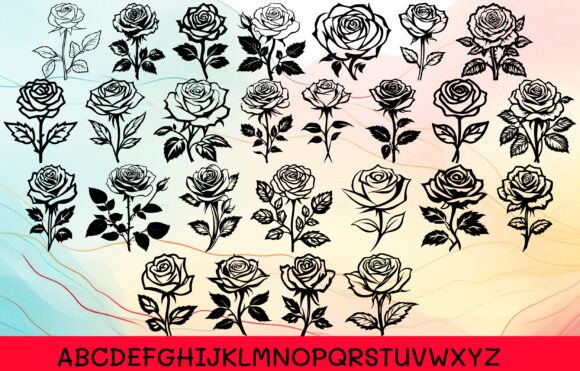
Introduction to Rose Flower in Love Font
As you sit at your desk, surrounded by scraps of paper, paint, and glue, you can’t help but feel a spark of creativity ignite within you. The blank page stares back, waiting for the perfect design to bring it to life. For many of us, this is the moment when our imagination knows no bounds, and the possibilities seem endless. But, have you ever found yourself struggling to find the perfect design element to elevate your project?
Enter the Rose Flower in Love Font, a stunning collection of 26 unique rose-inspired designs, each corresponding to a letter from A to Z. This high-quality font is a treasure trove for designers, offering a versatile design resource that can be used in a variety of creative projects, from crafting and invitations to wedding themes and more.
Key Features of Rose Flower in Love Font
- High-quality, creative font perfect for a variety of design projects, including wedding invitations, greeting cards, and more.
- Includes a transparent background, making it easy to use in various design applications and backgrounds.
- Features a beautiful, hand-drawn design with intricate details and a romantic touch, perfect for adding a touch of elegance to any project.
- Designed at 300 DPI, ensuring high-resolution quality and clarity, even when scaled up or down.
- A great addition to any designer’s collection, perfect for adding a personal touch to creative projects and designs.
Honest Review: Rose Flower in Love Font
As a designer, I’m always on the lookout for high-quality fonts that can elevate my creative projects. Recently, I stumbled upon the Rose Flower in Love Font and I’m excited to share my honest review.
Here’s what works well:
- ✨ The font is incredibly detailed, with beautiful and intricate designs that make it perfect for projects that require a touch of elegance.
- ✨ The transparent background allows for easy layering and customization, making it a versatile design resource.
- ⚠️ The font may not be suitable for all types of projects, particularly those that require bold or distressed text.
- ⚠️ The font’s intricate details may be lost when scaled up or down, so it’s essential to test it at different sizes.
Overall, I’m impressed with the Rose Flower in Love Font. Its high-quality design and transparent background make it a valuable addition to any designer’s toolkit. While it may have some limitations, it’s a great choice for projects that require a touch of romance and elegance.
Introduction to Rose Flower in Love Font
Rose Flower in Love Font is a beautiful, high-quality design resource that can elevate any creative project. With its elegant and delicate design, this font is perfect for adding a touch of romance and sophistication to your work.
Tips for Getting the Most Out of Rose Flower in Love Font
Here are some tips for getting the most out of Rose Flower in Love Font:
- Use it in conjunction with other elegant fonts for a sophisticated look.
- Experiment with different font sizes and styles to add emphasis to your text.
- Combine the font with images and graphics for a visually appealing design.
Rose Flower in Love Font is perfect for:
- Wedding invitations and decorations.
- Valentine’s Day cards and gifts.
- Anniversary and birthday celebrations.